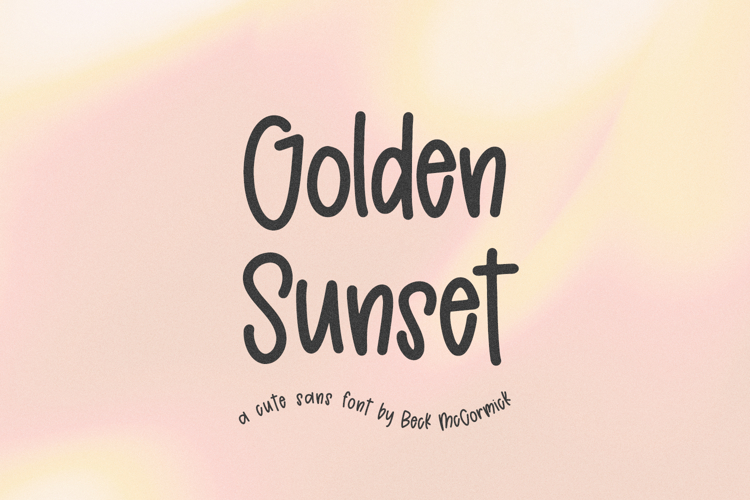
Golden Sunset Sans is an adorable handwritten sans font. This font is neat & tidy with a little bouncy cuteness. Golden Sunset Sans is perfect for logos & branding, greeting cards, painted banners, digital planners, note-taking apps, Canva, Cricut projects, Silhouette projects, designing SVG files, laser cutting projects, & more.